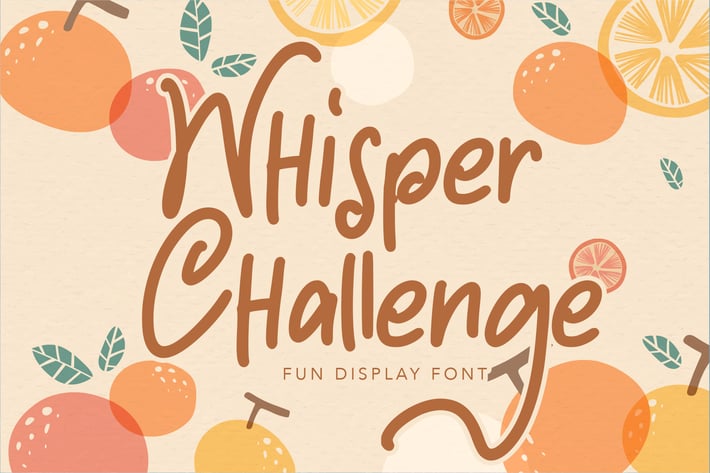
Whisper Challenge | Fun Display Font
Whisper Challenge | Fun Display Font with a calligraphy style, So beautiful on invitation like greeting cards, branding materials, business cards, quotes, posters, and more!